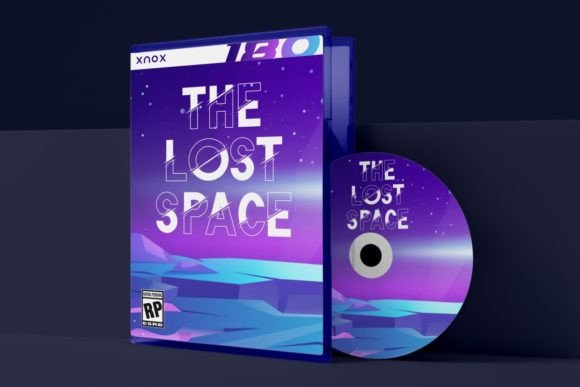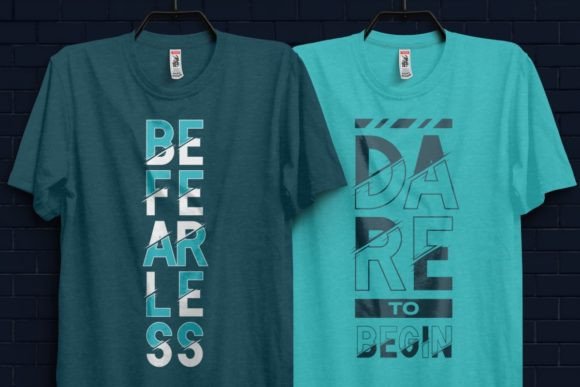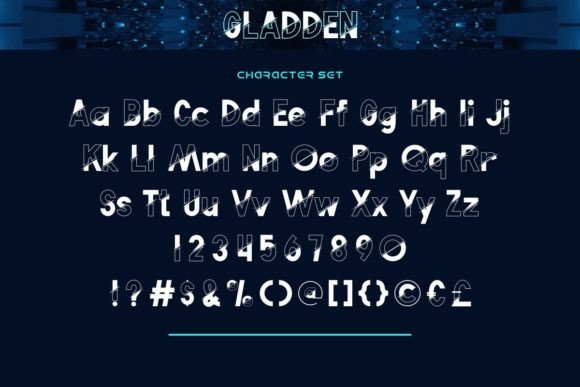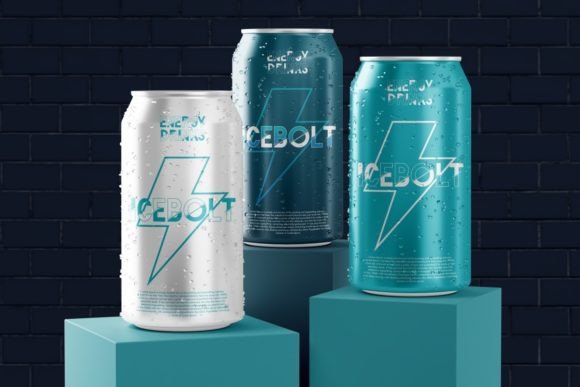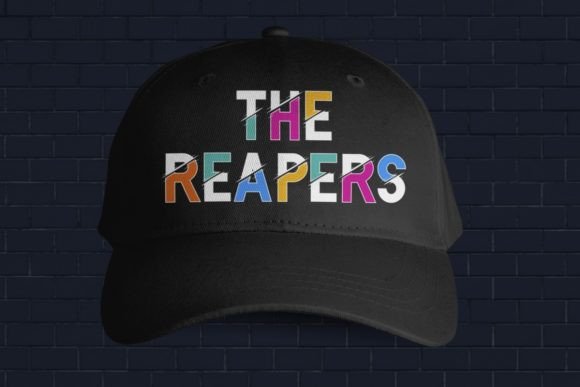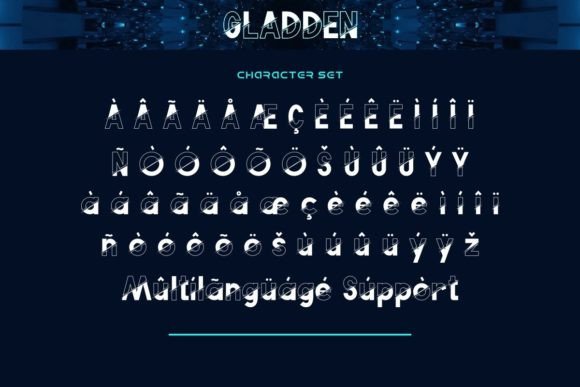
Introducing Gladden Font: The Futuristic Display Font with a Glitchy Twist
In the world of typography, fonts play a crucial role in conveying the tone and personality of a brand. With the ever-evolving design landscape, it’s essential to stay ahead of the curve with fresh and innovative fonts. Gladden Font is a modern display font that embodies a futuristic and glitchy style, perfect for designers and crafters looking to add an edgy touch to their projects.
Unique Characteristics of Gladden Font
Gladden Font boasts a distinctive feature that sets it apart from other fonts: a diagonal line in each letter that gives an eroded effect. This unique characteristic adds a sense of dynamism and energy to the font, making it perfect for attention-grabbing applications. The font also features two different colors, which adds an extra layer of visual interest and makes it stand out from the crowd.
Gladden Font’s versatility makes it an excellent choice for a wide range of design applications. Whether you’re looking to create a bold brand logo, design a product label, or craft a stunning poster, this font is sure to impress. Its futuristic and glitchy style also makes it perfect for web pages, quotes, and other digital applications.
Key Features of Gladden Font
- Modern Display Font: Gladden Font is a modern display font designed to make a statement.
- Futuristic and Glitchy Style: The font’s futuristic and glitchy style adds an edgy touch to any design.
- Diagonal Line Effect: The diagonal line in each letter gives an eroded effect, adding dynamism and energy to the font.
- Two-Tone Color Scheme: The font features two different colors, adding visual interest and making it stand out.
- Versatile: Gladden Font is perfect for a variety of design applications, including brand logos, labels, posters, web pages, and more.
Why Choose Gladden Font?
With so many fonts available, why choose Gladden Font? The answer lies in its unique blend of style and versatility. This font is perfect for designers and crafters who want to add a touch of futurism and edginess to their designs. Its modern display style and glitchy effect make it an excellent choice for brands looking to stand out in a crowded market.
Tips for Using Gladden Font
To get the most out of Gladden Font, here are some tips for using it effectively:
- Use it as a Statement Piece: Gladden Font is designed to make a statement, so use it as a focal point in your design.
- Experiment with Colors: The font’s two-tone color scheme offers endless possibilities for creative experimentation.
- Pair it with Simple Fonts: Balance out the boldness of Gladden Font by pairing it with simpler fonts.
- Use it for Headings: The font’s display style makes it perfect for headings and titles.
Gladden Font is a game-changer for designers and crafters looking to add a touch of futurism and edginess to their designs. Its unique blend of style and versatility makes it perfect for a wide range of applications. With its modern display style, glitchy effect, and two-tone color scheme, Gladden Font is sure to impress. So why wait? Download Gladden Font today and take your designs to the next level!